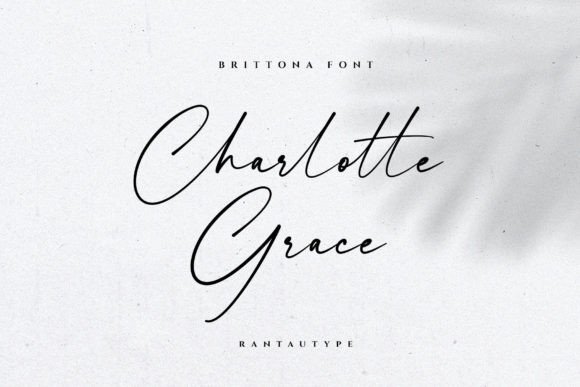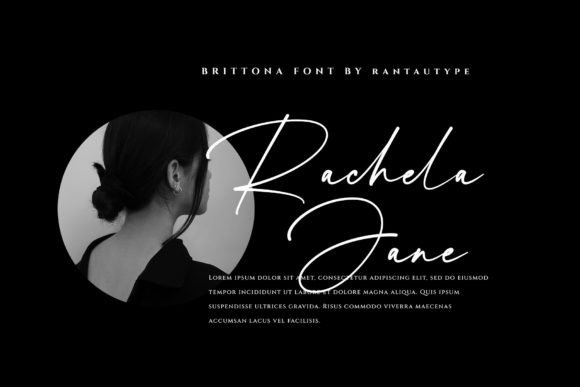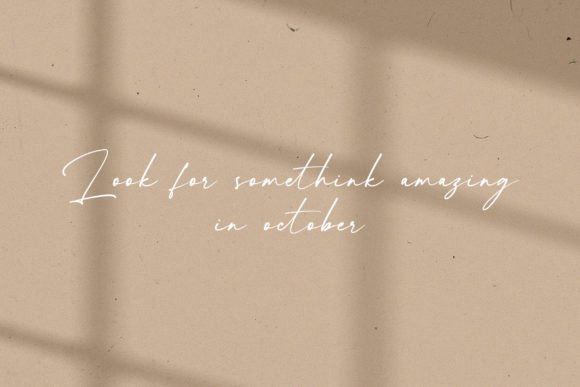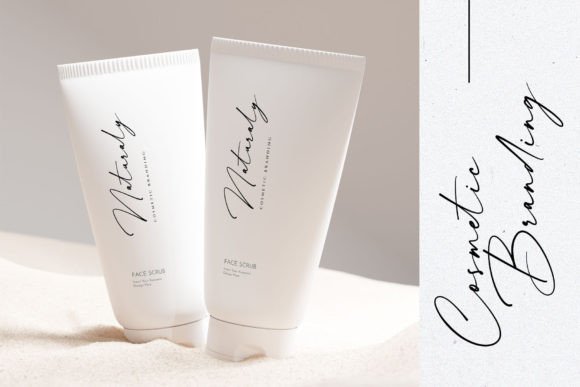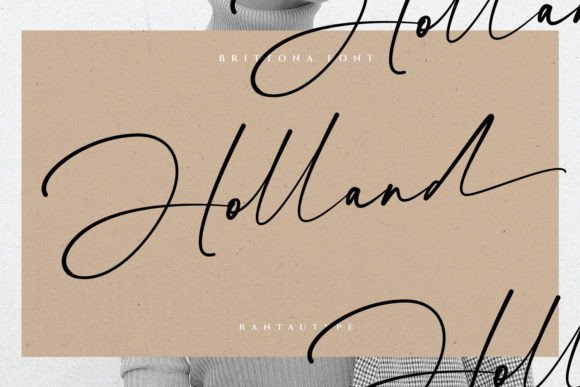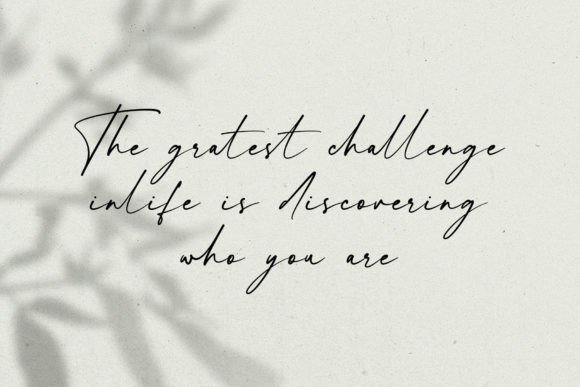
Introduction to Brittona Font
Brittona is an enchanting handwritten font.
This versatile script font has a wide spectrum of applications ranging from greeting cards to headlines and is guaranteed to add a romantic feel to your next project .